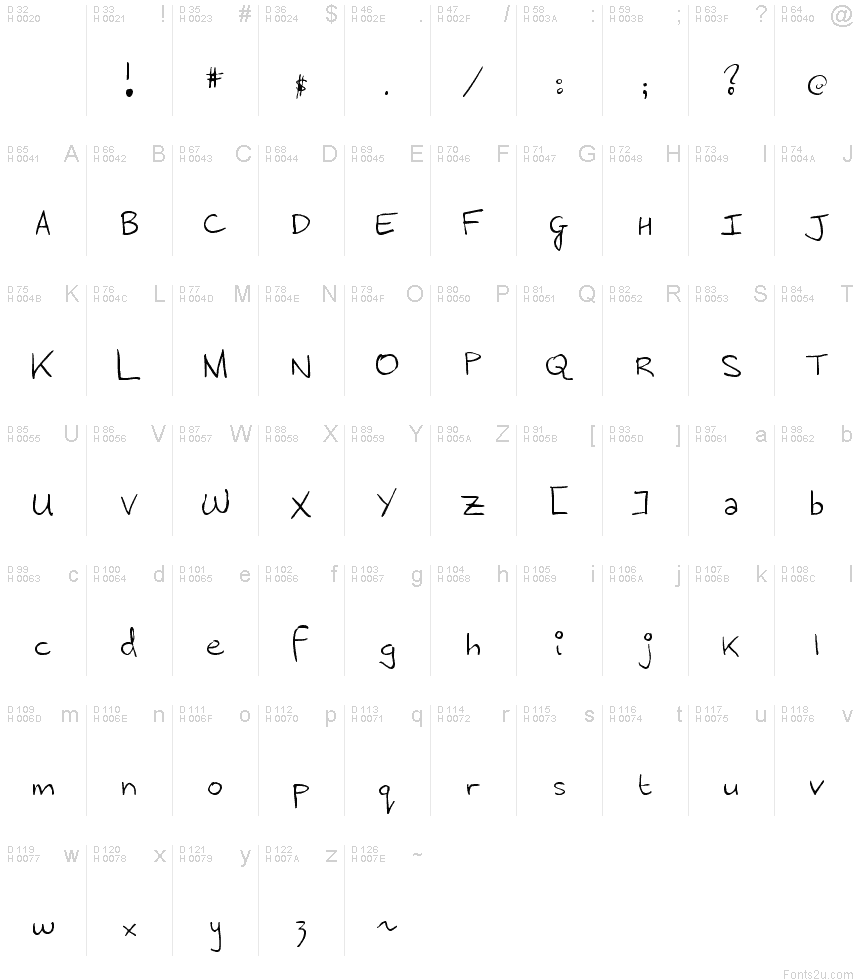
Menrath Antiqua
Based on the handwriting of the illustrious and elusive spoon collector H. Sebastian Menrath, Menrath Antiqua lets you have the opportunity to get closer to the man and the legend.
Drawn by Menrath. Fonted by Joanna Briggs.